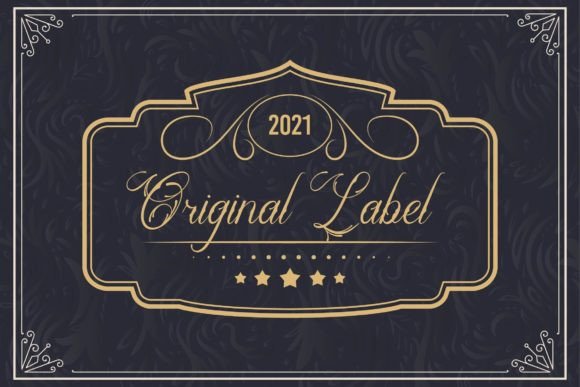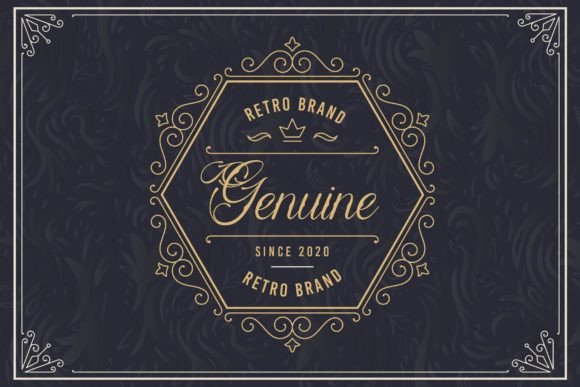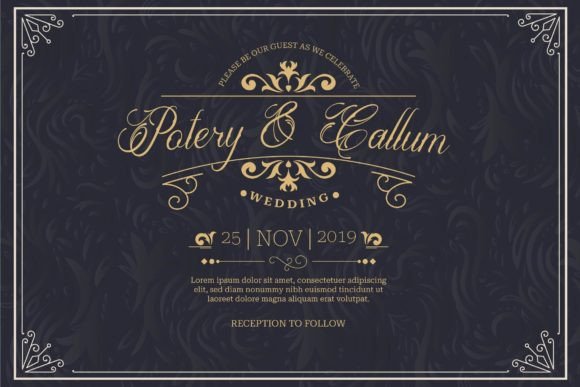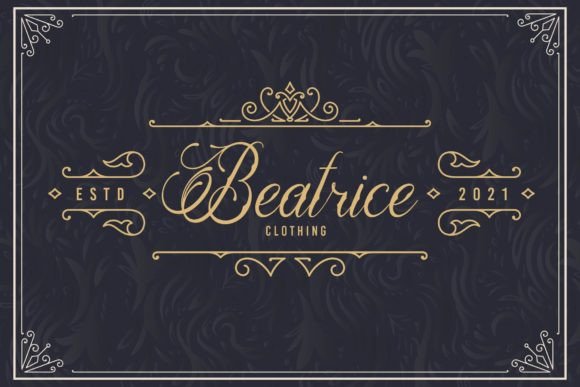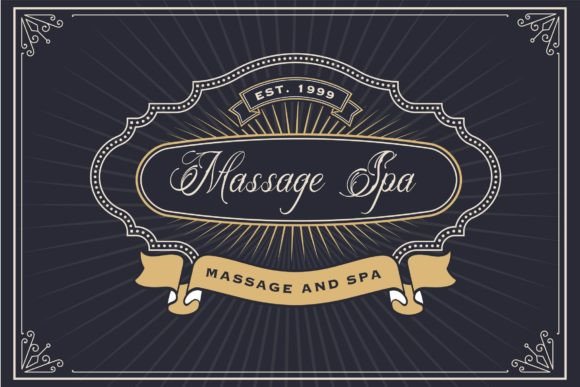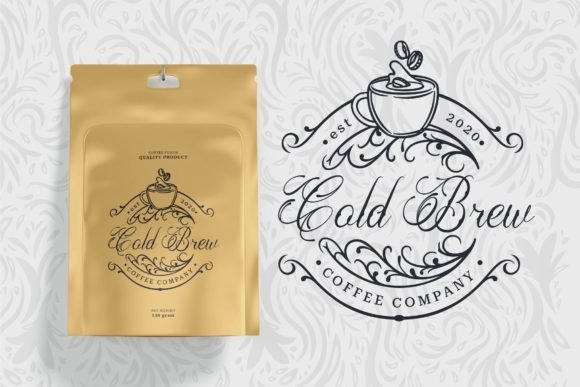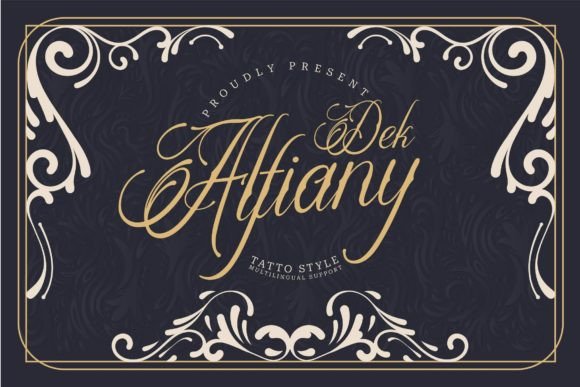
Introducing Alfiany Dek Font: The Ultimate Tattoo Style for Your Creative Projects
Are you a designer, crafter, or artist looking for a unique and stylish font to elevate your projects? Look no further than Alfiany Dek Font, a stunning tattoo-style script that’s perfect for a wide range of applications. From logos and branding to homeware designs, product packaging, and more, this versatile font is sure to add a touch of edgy sophistication to your work.
What is Alfiany Dek Font?
Alfiany Dek Font is a carefully crafted tattoo-style script that’s designed to bring a bold, artistic vibe to your projects. With its intricate lines, delicate curves, and distinctive flair, this font is perfect for anyone looking to add a touch of rebellious charm to their designs. Whether you’re working on a logo, a poster, or a product label, Alfiany Dek Font is sure to make a statement.
What Projects is Alfiany Dek Font Suitable For?
One of the best things about Alfiany Dek Font is its incredible versatility. This font is suitable for a wide range of projects, including:
• Logos and branding projects: Add a touch of edgy sophistication to your brand identity with Alfiany Dek Font.
• Homeware designs: Create stunning home decor products, such as wall art, cushions, and tote bags, with this unique font.
• Product packaging: Stand out on store shelves with eye-catching packaging that features Alfiany Dek Font.
• Mugs and ceramics: Add a touch of personality to your coffee mugs, plates, and other ceramics with this stylish font.
• Quotes and posters: Create inspiring and thought-provoking posters and quotes that showcase Alfiany Dek Font.
• Shopping bags and packaging: Elevate your brand’s shopping bags and packaging with a bold, artistic font.
• T-shirts and apparel: Design stunning t-shirts, hoodies, and other apparel with Alfiany Dek Font.
• Book covers and stationery: Add a touch of sophistication to your book covers, journals, and stationery with this beautiful font.
• Name cards and invitation cards: Create elegant name cards and invitation cards that feature Alfiany Dek Font.
• Greeting cards and labels: Add a personal touch to your greeting cards, labels, and other paper products with this unique font.
• Photography and watermark: Use Alfiany Dek Font to add a professional touch to your photography and watermark.
• Special events: Create stunning event branding, such as flyers, posters, and social media graphics, with Alfiany Dek Font.
Why Choose Alfiany Dek Font?
So why should you choose Alfiany Dek Font for your projects? Here are just a few reasons:
• Unique and eye-catching: Alfiany Dek Font is a one-of-a-kind tattoo-style script that’s sure to grab attention.
• Versatile: This font is suitable for a wide range of projects, from logos and branding to homeware designs and product packaging.
• High-quality: This font is carefully crafted to ensure high-quality and crisp lines, making it perfect for both print and digital applications.
• Experiment with different sizes and colors: Play around with different font sizes and colors to find the perfect combination for your project.
• Pair with other fonts: Alfiany Dek Font looks great when paired with other fonts. Try combining it with a clean sans-serif font for a bold, contrasting look.
• Use it sparingly: Because Alfiany Dek Font is a bold and eye-catching font, it’s best to use it sparingly. Use it to highlight key words or phrases, or to add a touch of personality to your design.
Alfiany Dek Font is a stunning tattoo-style script that’s perfect for designers, crafters, and artists looking to add a touch of edgy sophistication to their projects. With its unique lines, delicate curves, and distinctive flair, this font is sure to make a statement. Whether you’re working on a logo, a poster, or a product label, Alfiany Dek Font is a versatile and high-quality font that’s sure to elevate your designs.